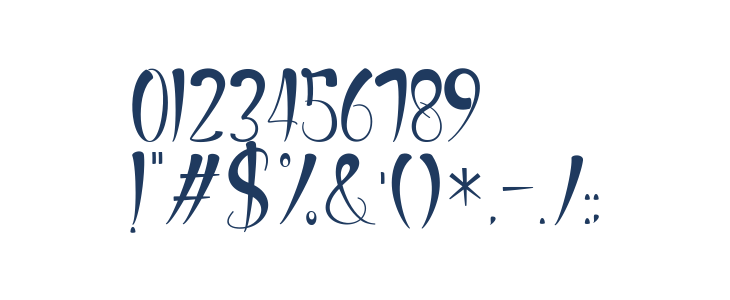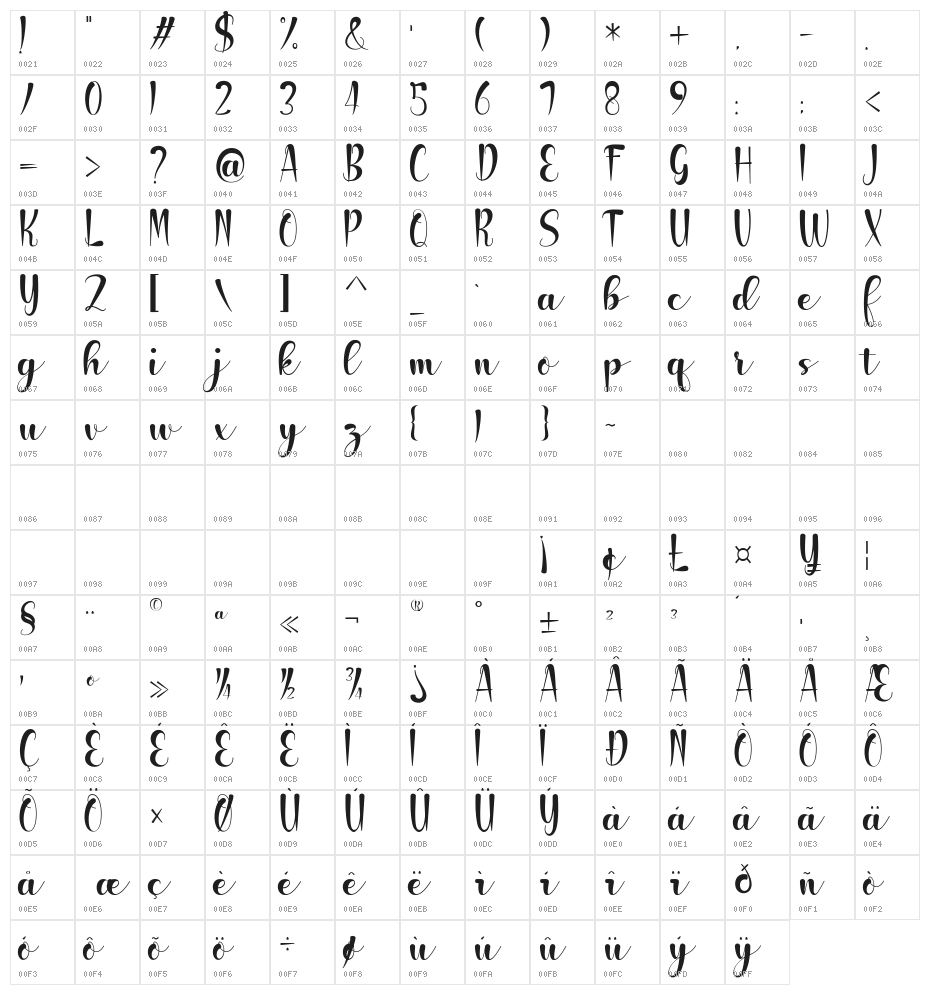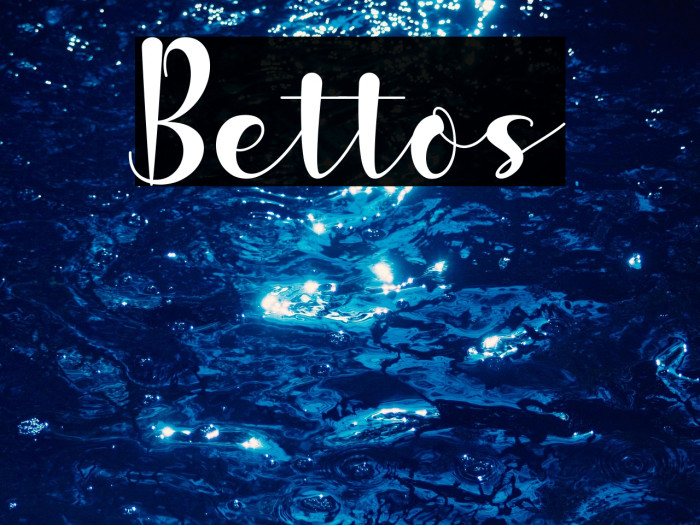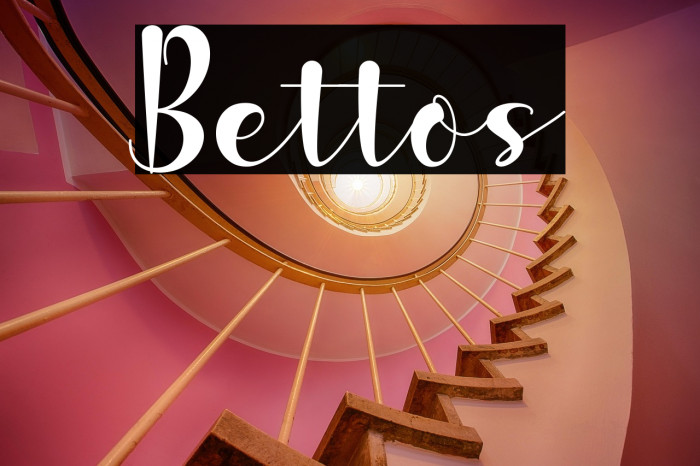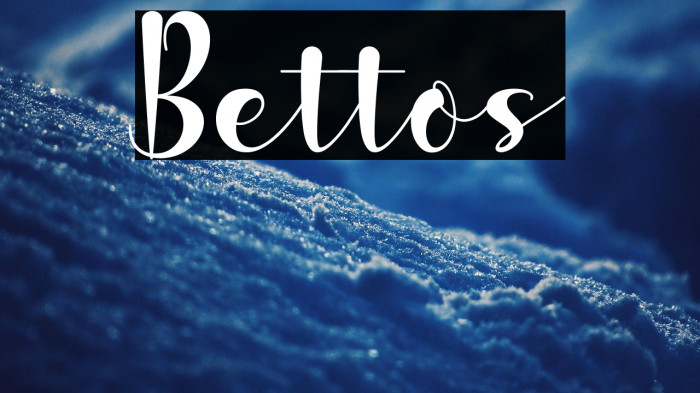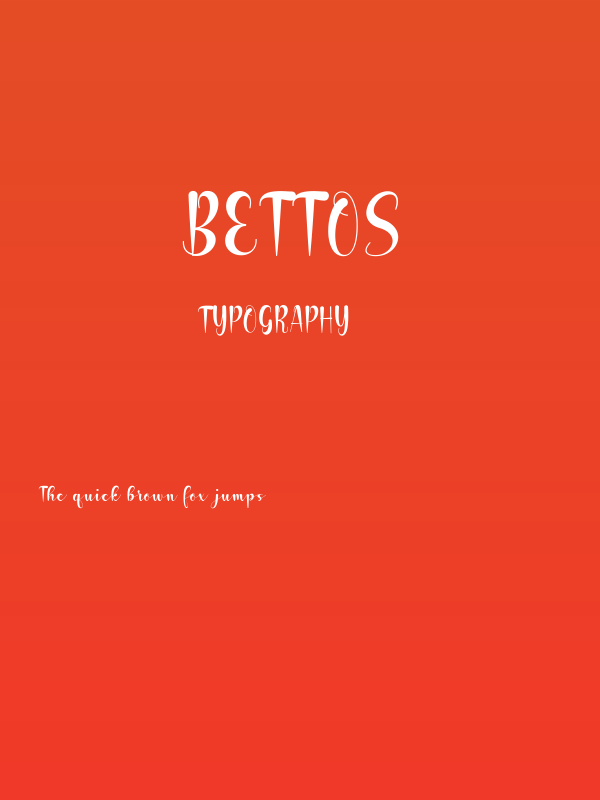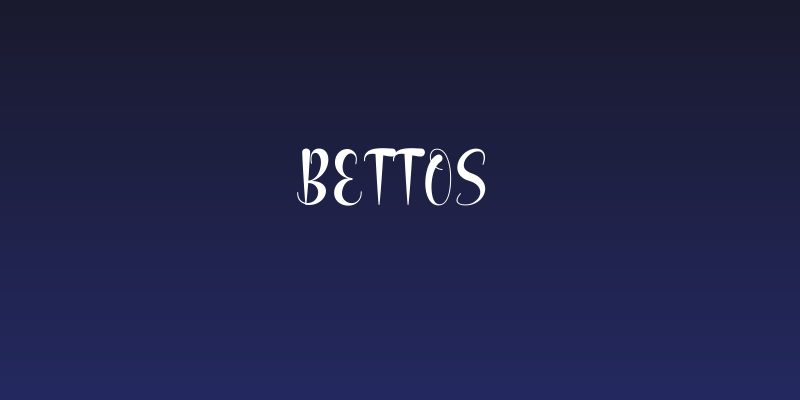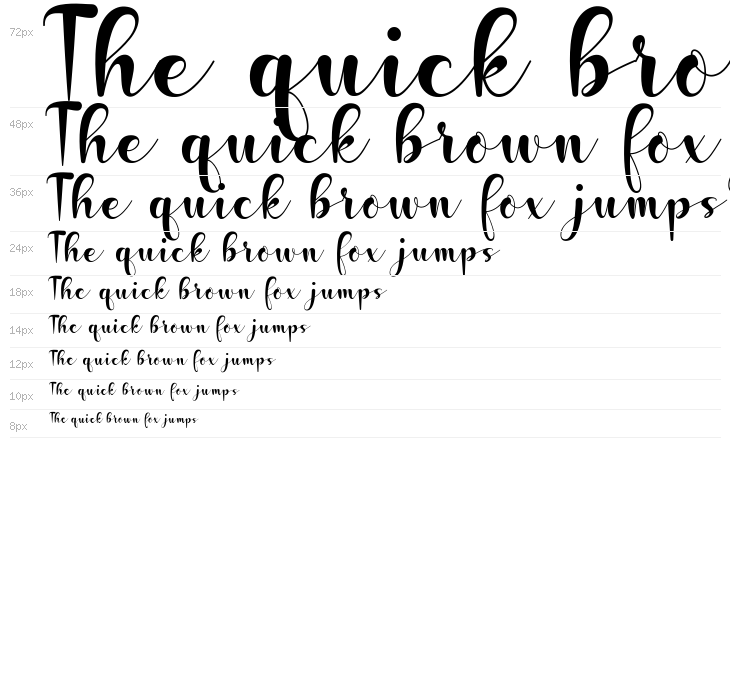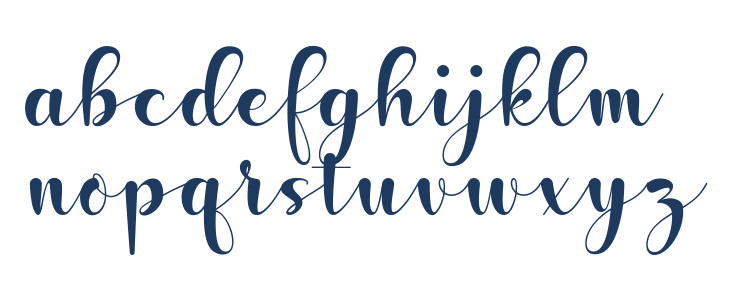
Bettos Font
Bettos Description
This font features a playful and elegant script style with a handwritten feel. The uppercase letters are bold and slightly condensed, with unique flourishes that add a whimsical touch. The lowercase letters are more fluid and connected, resembling a casual cursive handwriting. The numerals are bold and maintain the playful style, making them stand out. Special characters are creatively designed to match the overall aesthetic. The font's strokes vary in thickness, providing a medium contrast that enhances its legibility while maintaining its decorative appeal.